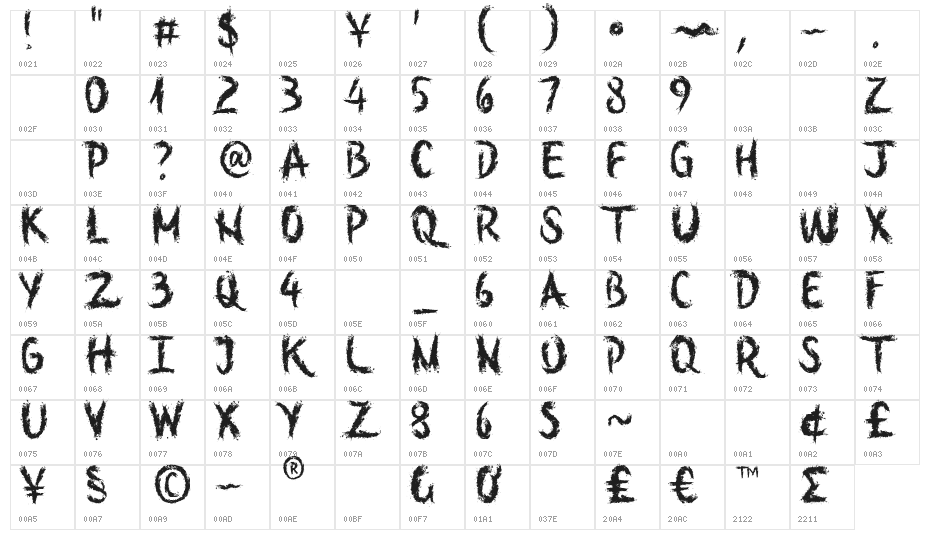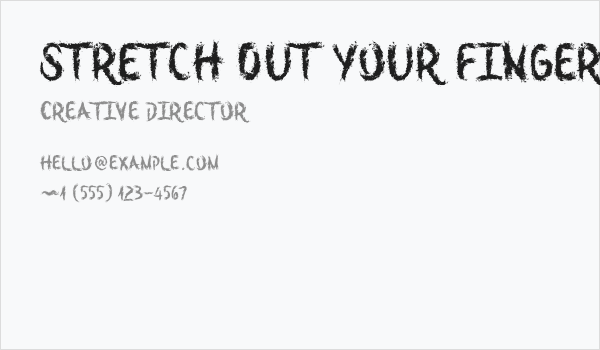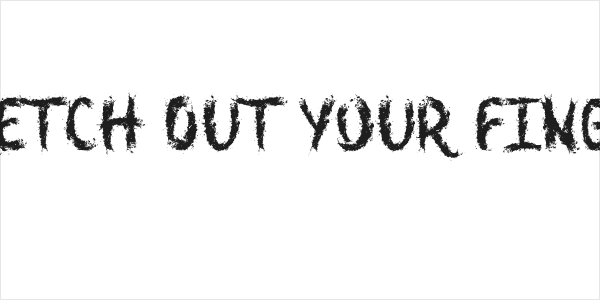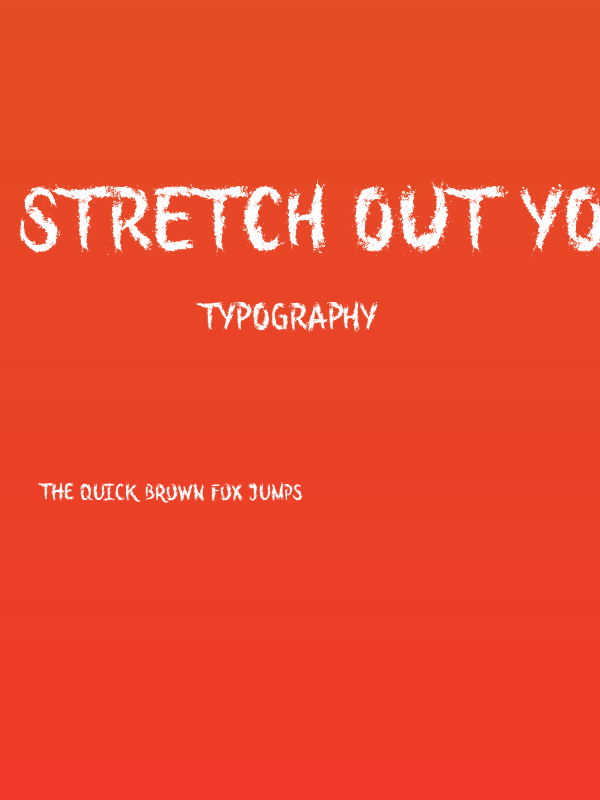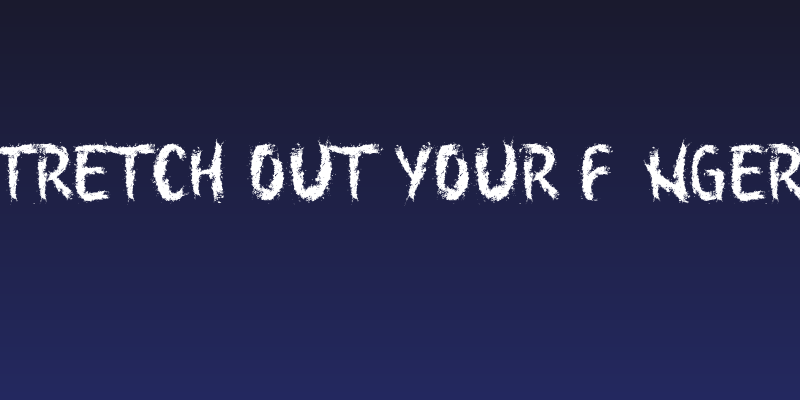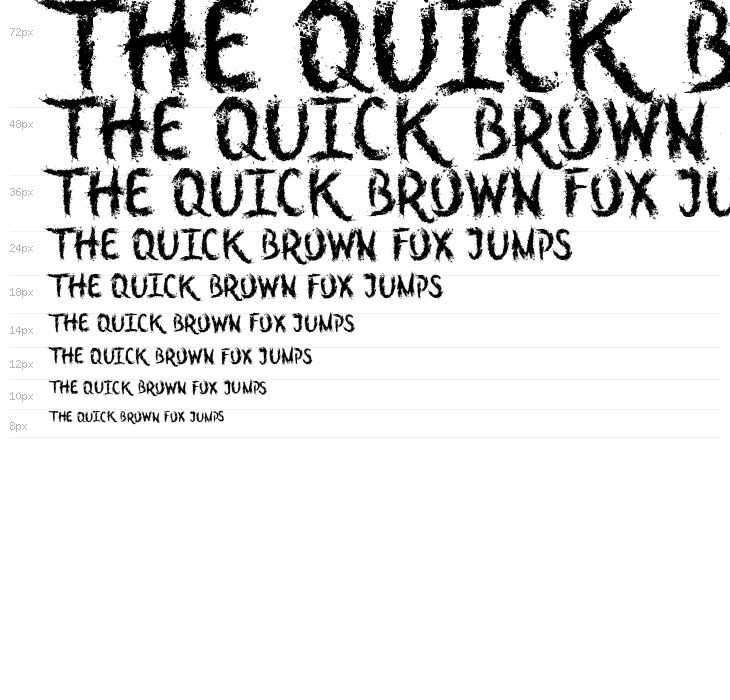
Stretch Out Your Fingers Font
Stretch Out Your Fingers Description
This font features a bold, textured style that mimics the appearance of brush strokes or chalk on a rough surface. The characters are irregular and dynamic, giving a sense of movement and energy. The uppercase and lowercase letters maintain a consistent rough texture, while the numbers and special characters follow the same design principle, ensuring uniformity across all glyphs. This font's unique, hand-crafted look makes it stand out, ideal for projects that require a personal touch or an artistic flair. The rough edges and uneven lines contribute to its distinctive, eye-catching appearance.
| Overall Style | Artistic, Dynamic |
| Use Case | Headlines, Posters, Artistic Designs |
| Proposed Projects | Ideal for artistic projects, posters, album covers, or any design requiring a bold, hand-crafted look. |